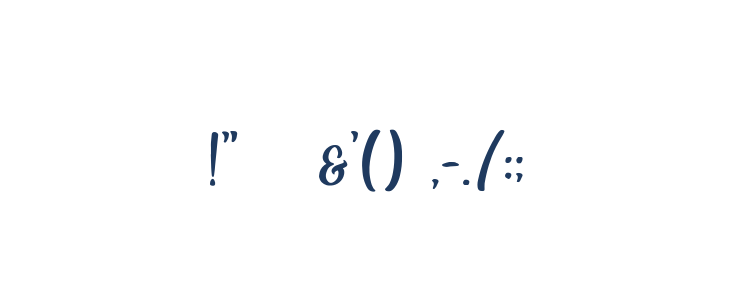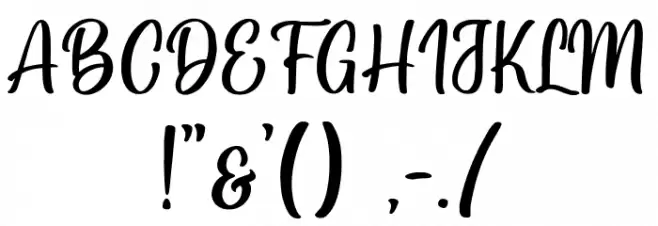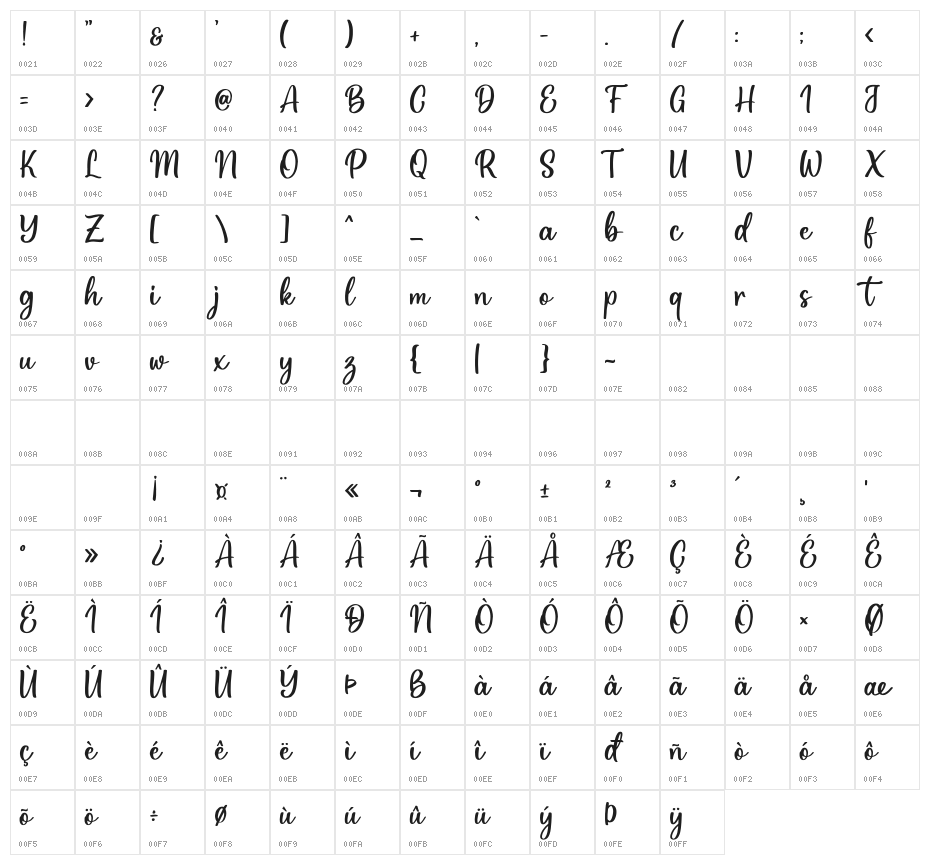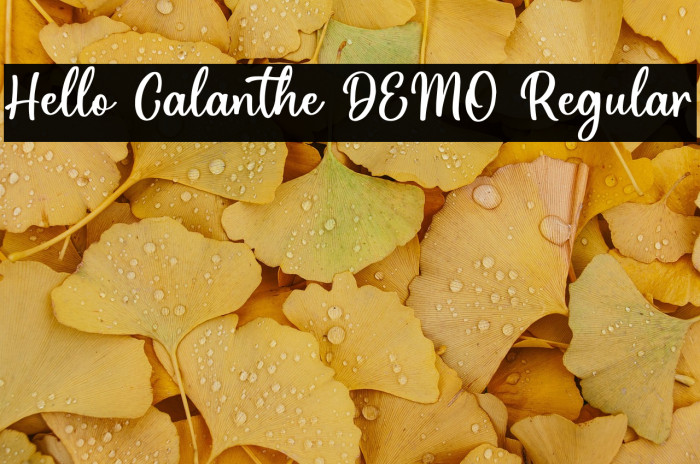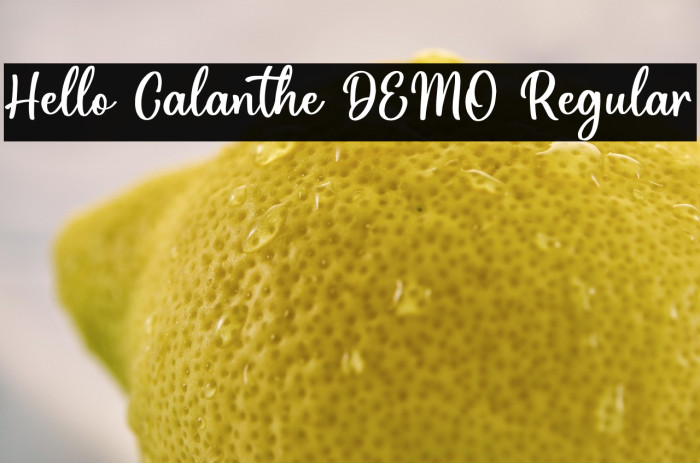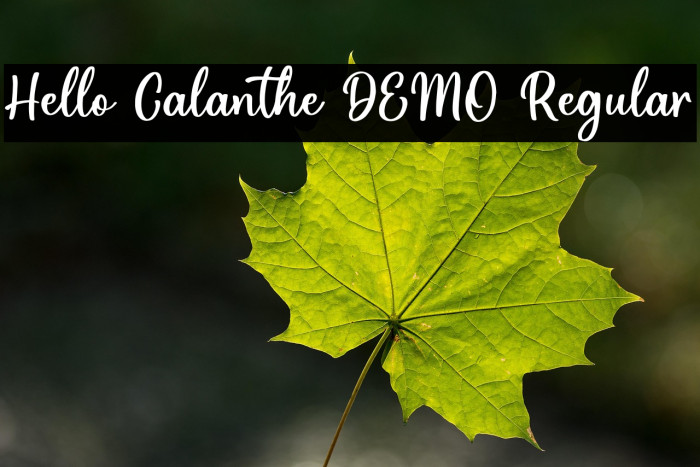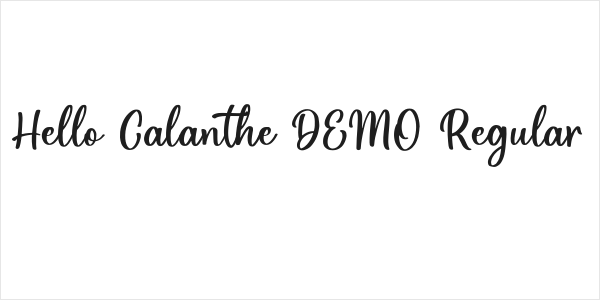
Hello Calanthe DEMO Regular Font
Hello Calanthe DEMO Regular Description
This font features a lively and flowing script style, characterized by its smooth, cursive letterforms that exude a sense of elegance and playfulness. The uppercase letters are bold and slightly elongated, while the lowercase letters maintain a consistent rhythm with a slight slant, enhancing the handwritten feel. The strokes are moderately thick, providing a good balance between readability and decorative flair. The font includes a full set of uppercase and lowercase letters, numerals, and a selection of punctuation marks, making it versatile for various design needs. Its overall appearance is both modern and classic, suitable for projects that require a touch of sophistication and creativity.
A lively, flowing script font with elegant, cursive letterforms from Uncategorized fonts.
- Proposed Projects: Ideal for wedding invitations, greeting cards, branding, and social media graphics.
- Use Case: Logos, Invitations, Decorative text